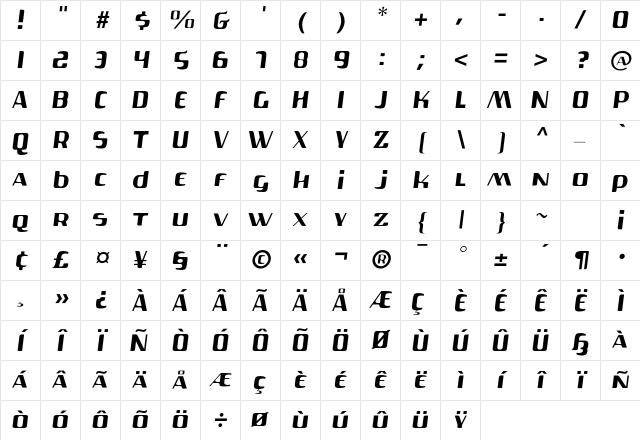
Gas Lite Free Font
Gas Lite
Style: Lite
Gas Family
Gas Lite
Design Context for Gas
Gas is a composed and adaptable typeface that performs quietly and consistently across a wide range of design contexts.